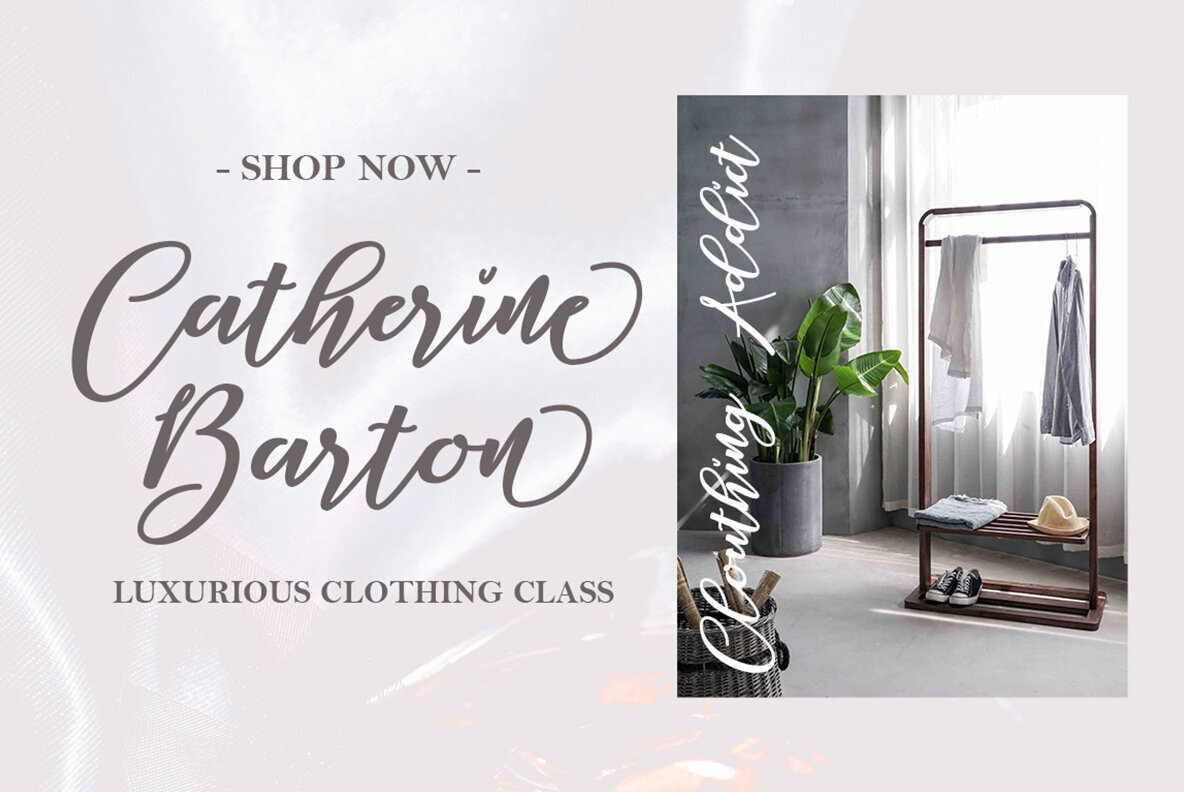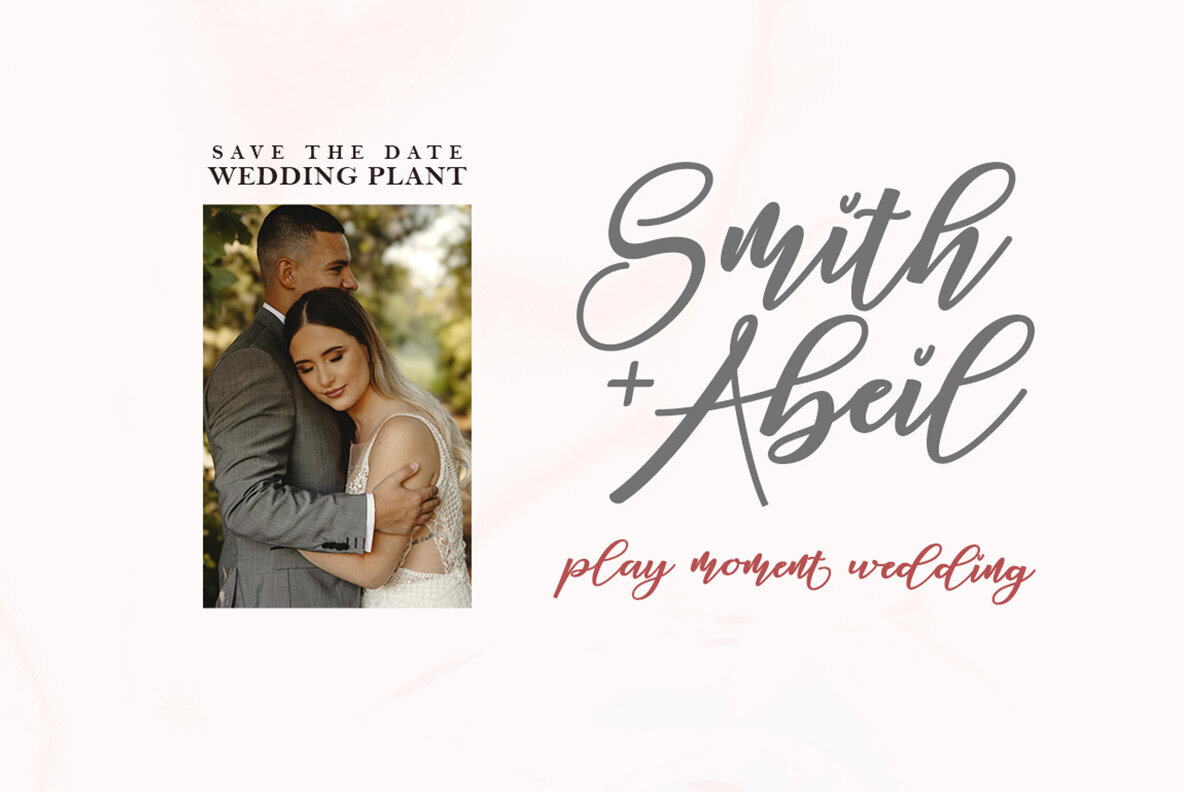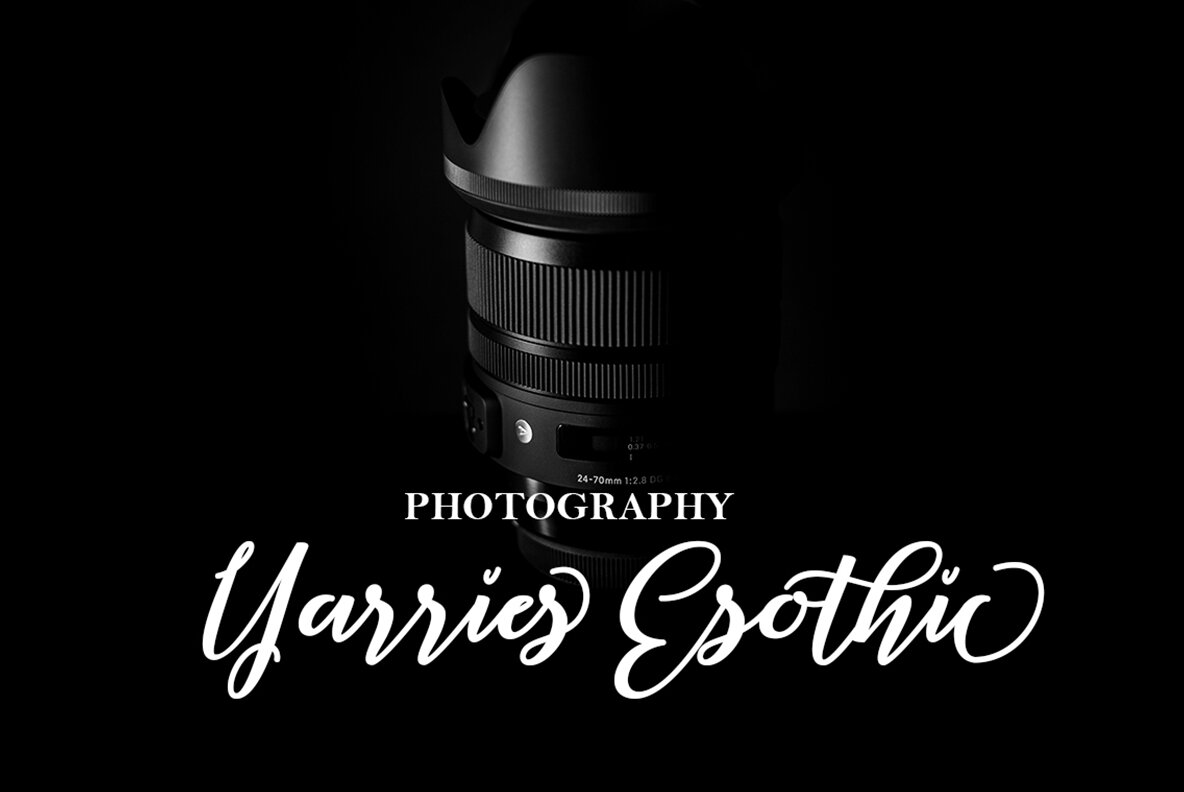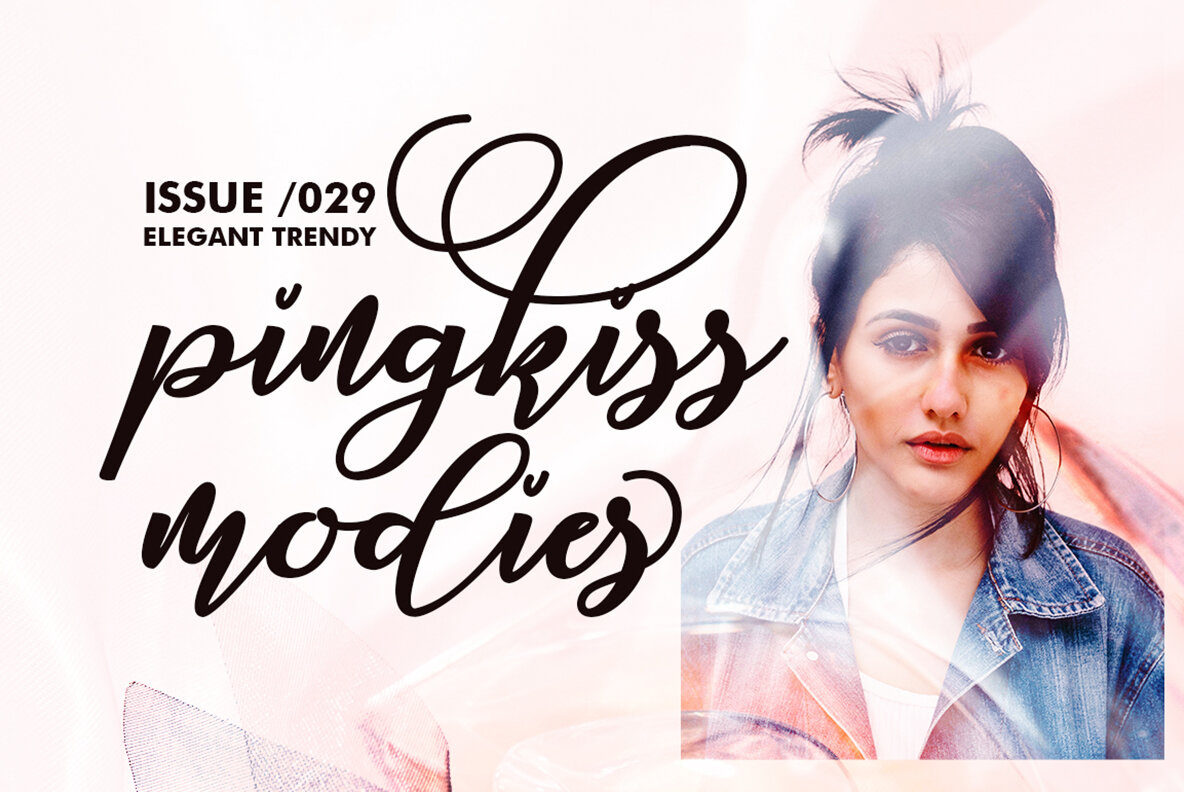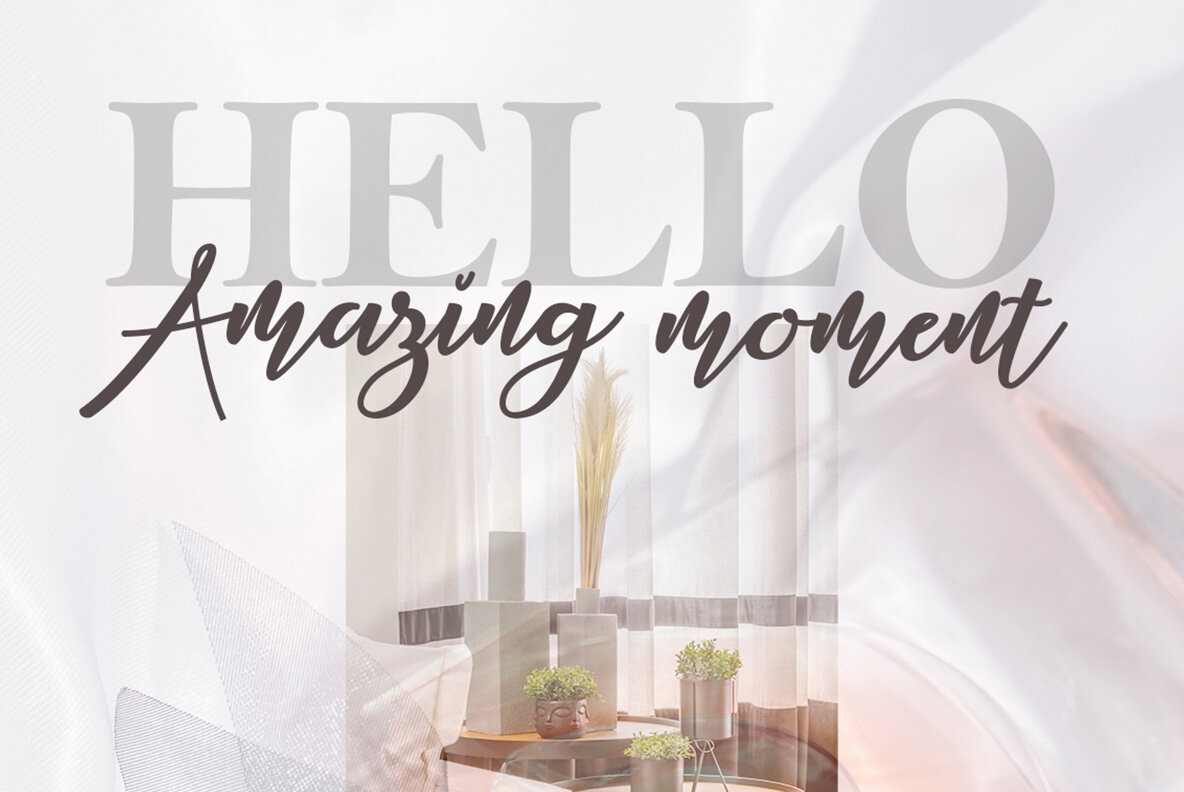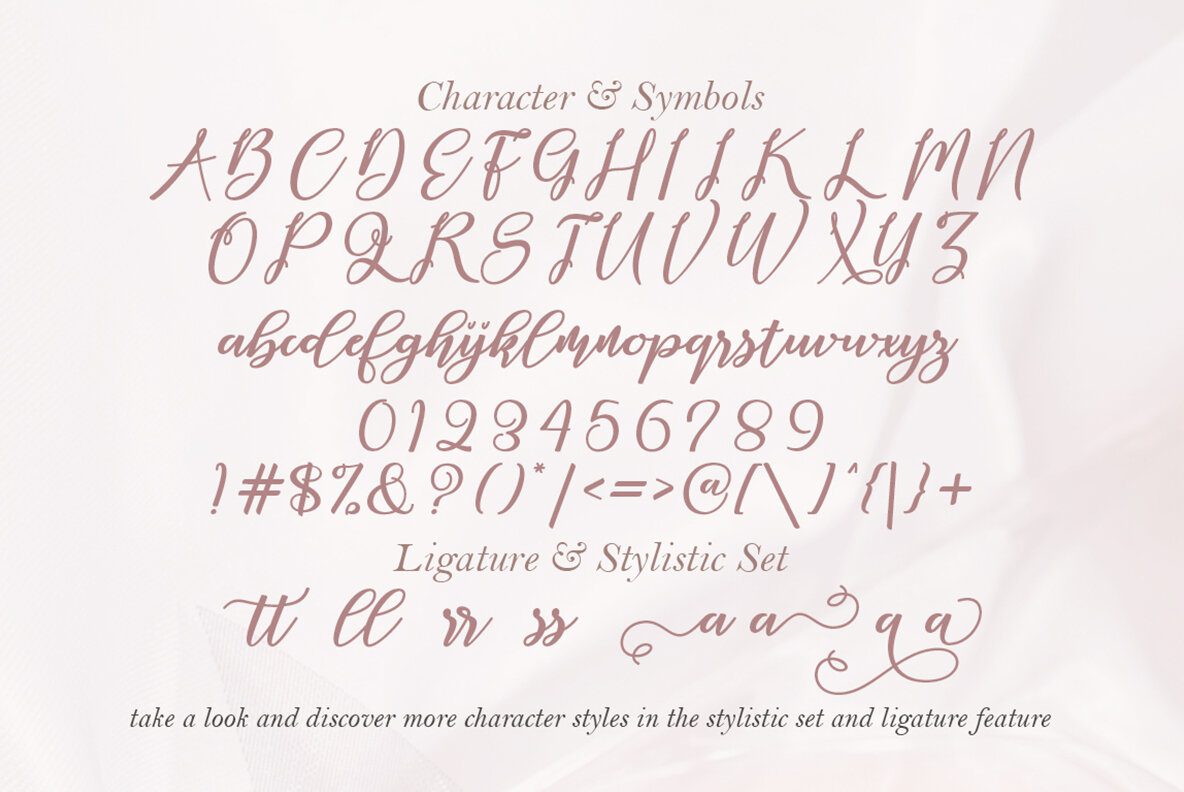
Ambelia Font
Ambelia Script
Ambelia Script is a natural handwritten font, ideal for adding a personal touch to various design projects. Whether you're crafting logos, invitations, stationery, or social media posts, this font seamlessly elevates your work with an artistic flair. If you have any questions, feel free to message us for more information and assistance.Ambelia Script: Elegant Handwritten Style for Versatile Designs